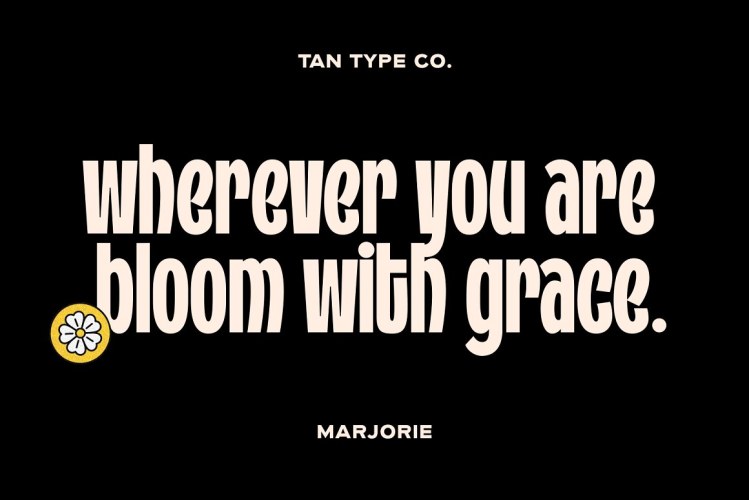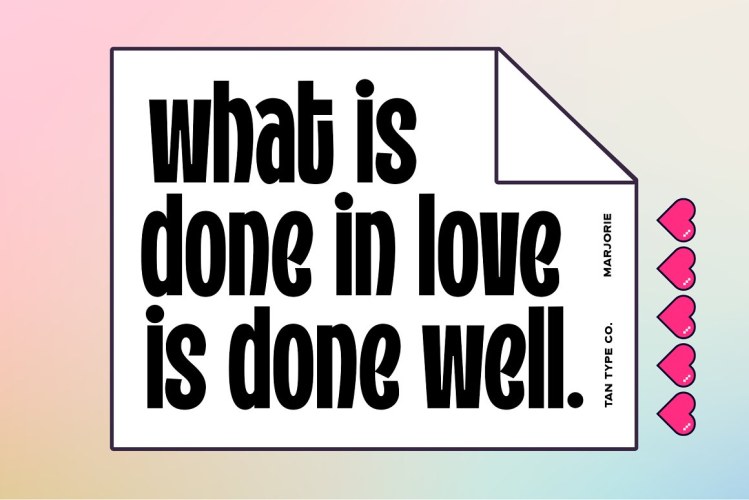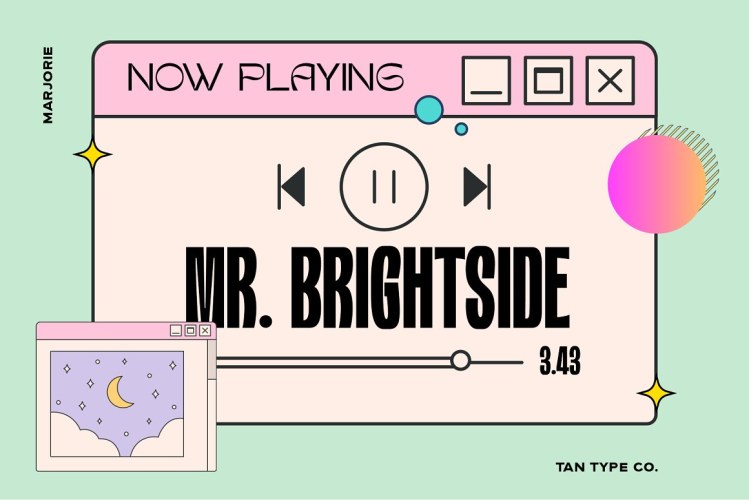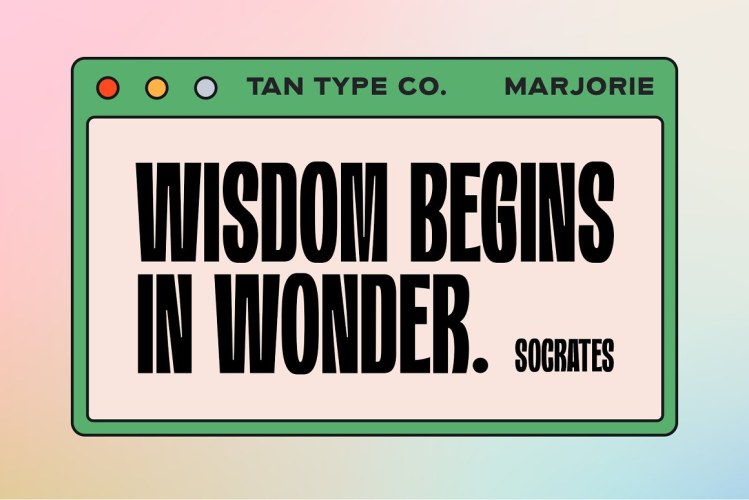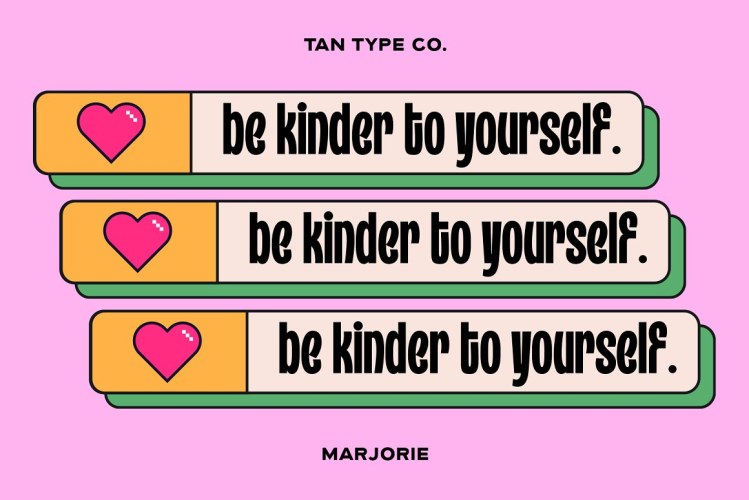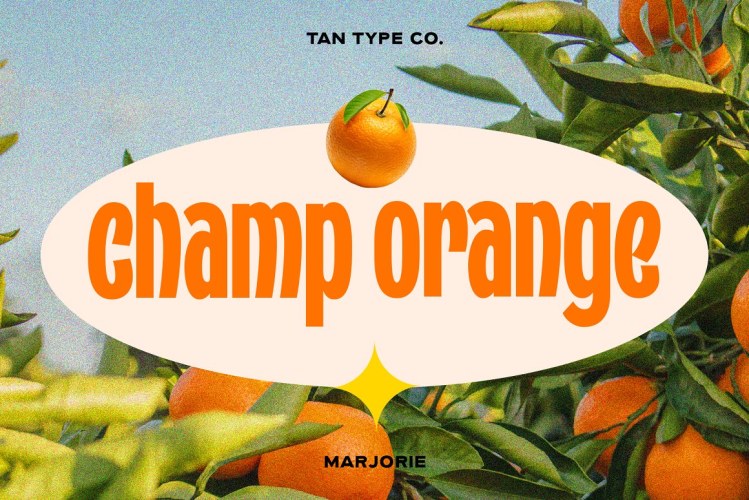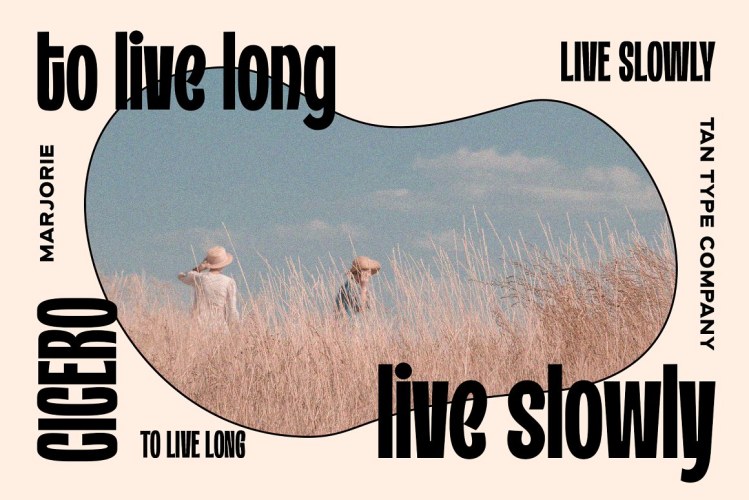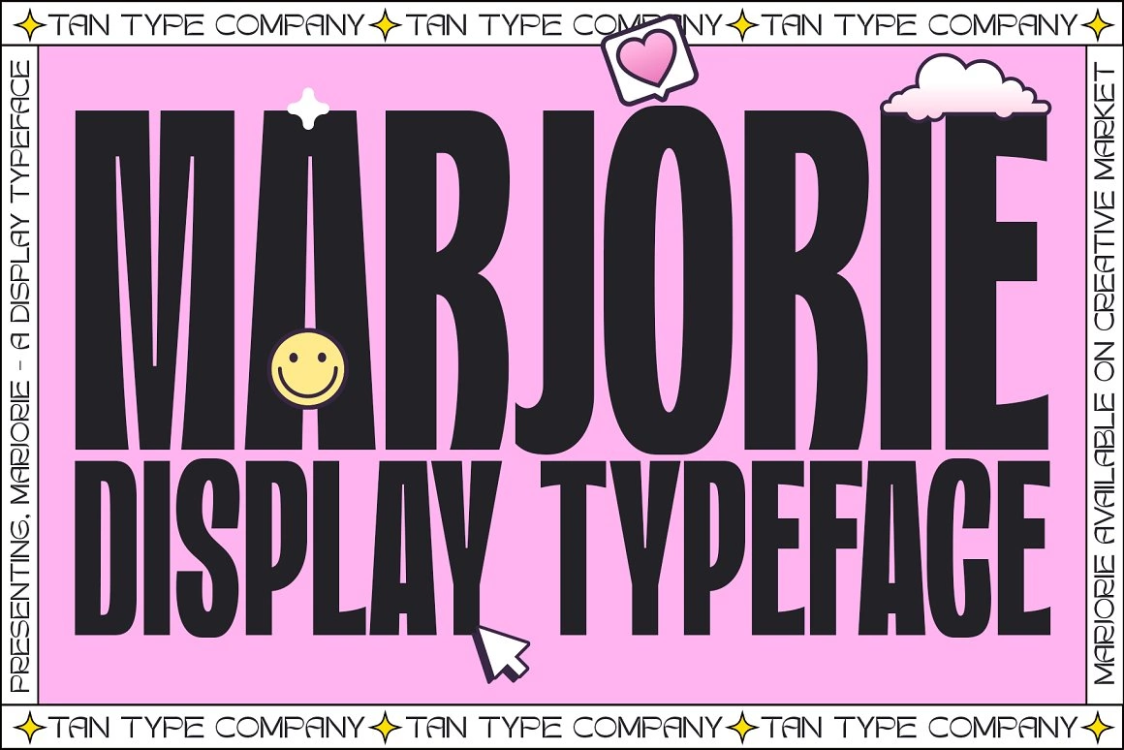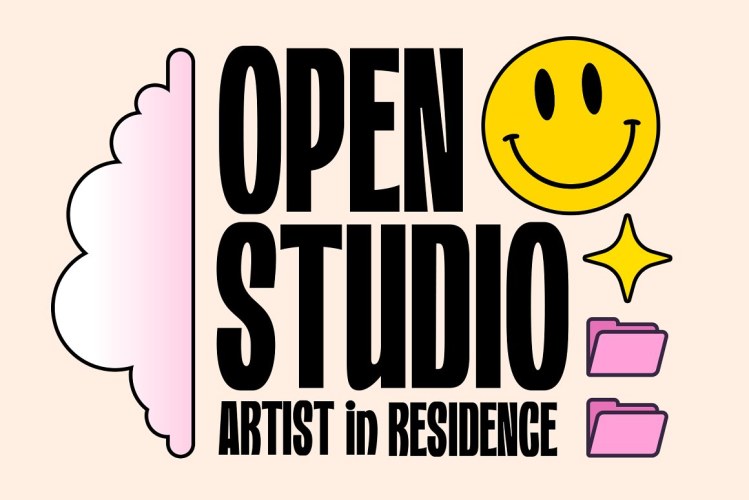
TAN MARJORIE Font
TAN MARJORIE is a daring groovy display font well suiting numerous design needs. Having a retro-inspired aesthetic and being bold, it becomes able to add impact and styl…
TAN MARJORIE is a daring groovy display font well suiting numerous design needs. Having a retro-inspired aesthetic and being bold, it becomes able to add impact and style to any project. This makes it a multi-purpose tool for designers who want to emphasize energy and style on their creations.
Where TAN MARJORIE Font works best
TAN MARJORIE Font is built for size: event posters, hero headlines and billboard-style layouts.
High contrast display type like TAN MARJORIE Font reads instantly in thumbnails and motion graphics.
What is TAN MARJORIE Font good for?